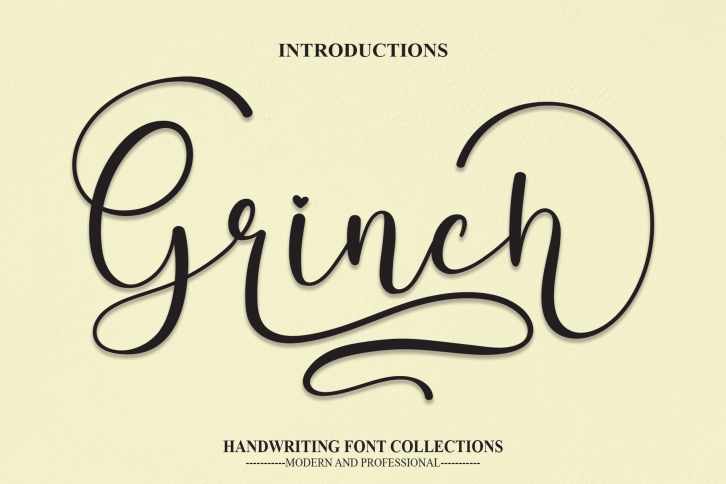
Grinch is a beautiful font that was designed by Scratchones. It's a great choice for designers and creatives who need such a font. It was released on March 2, 2022 and the file size is 5.80 MB. Grinch may give a more youthful, expressive and casual look to your project. It is a very beautiful, refined, elegant, and high-quality font.